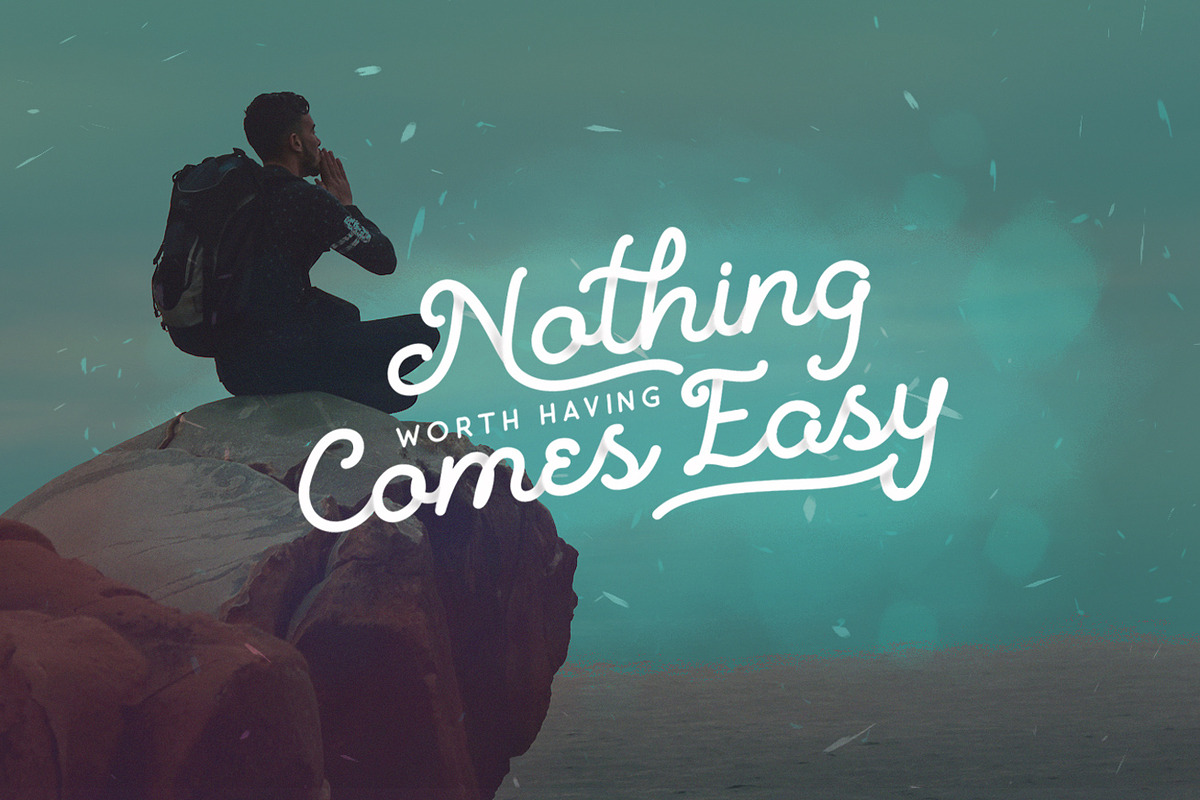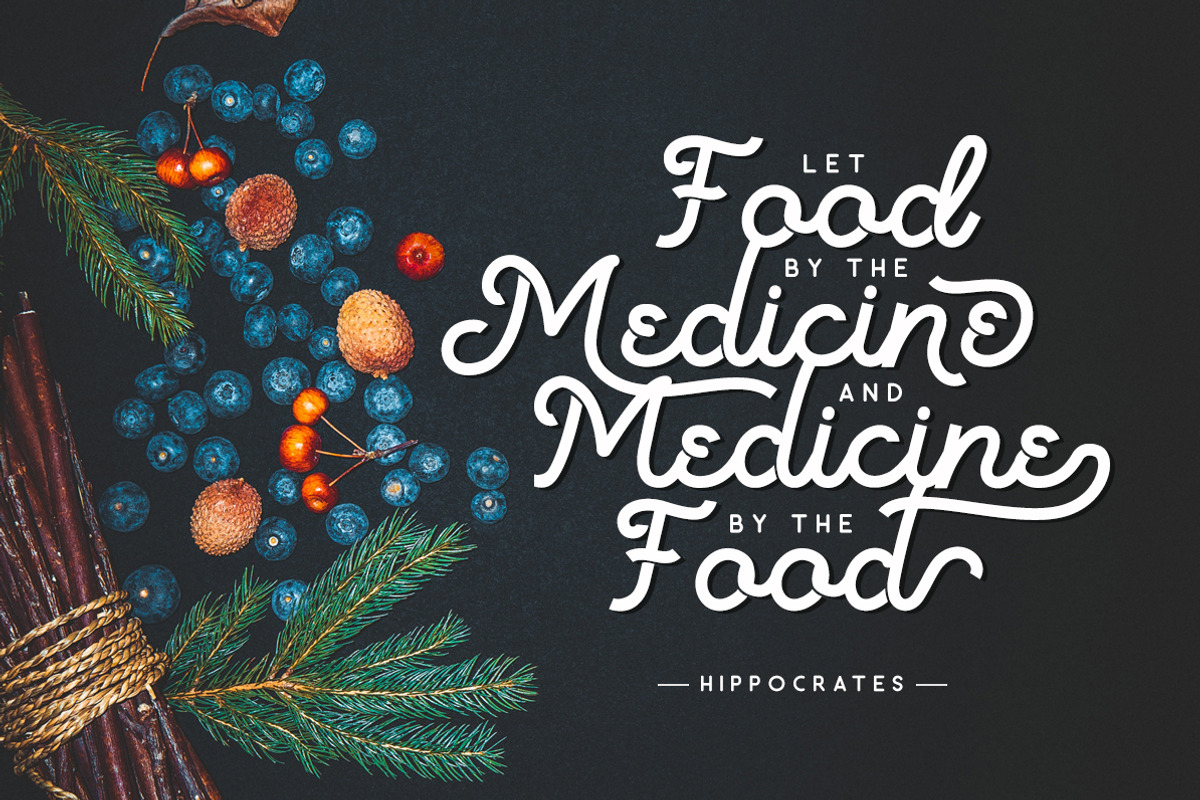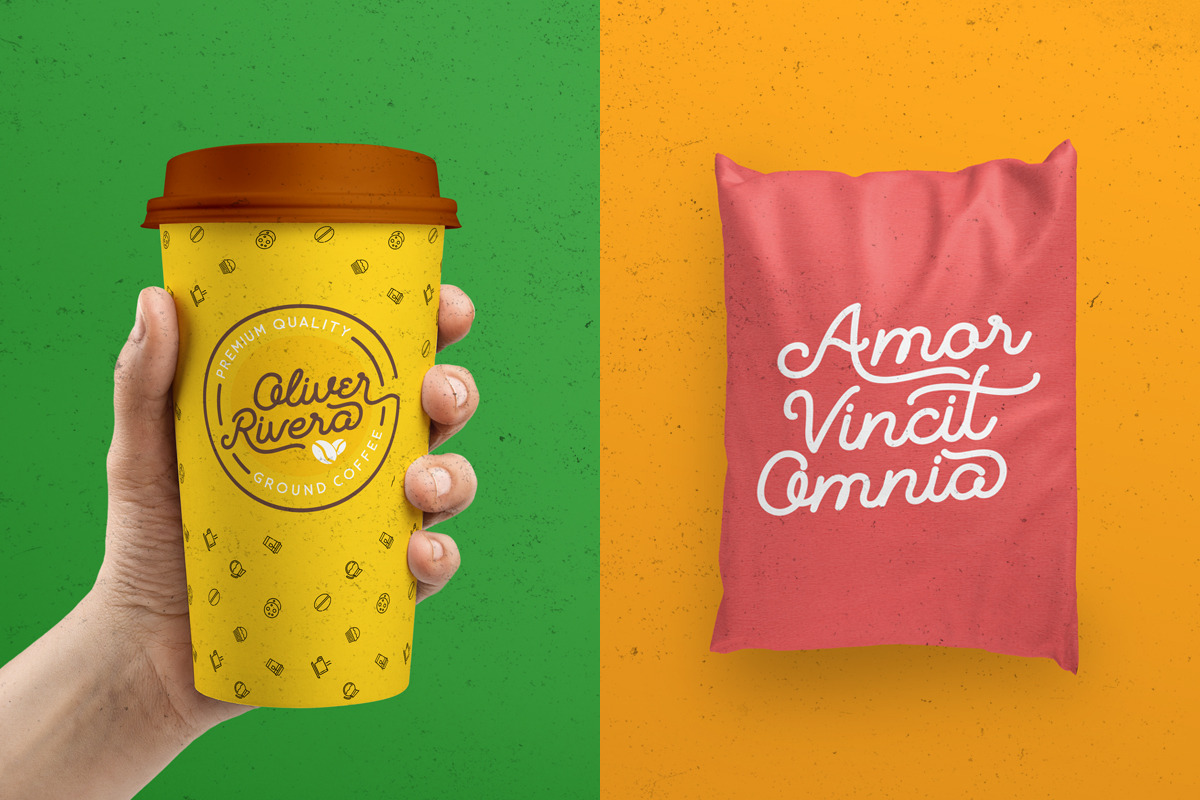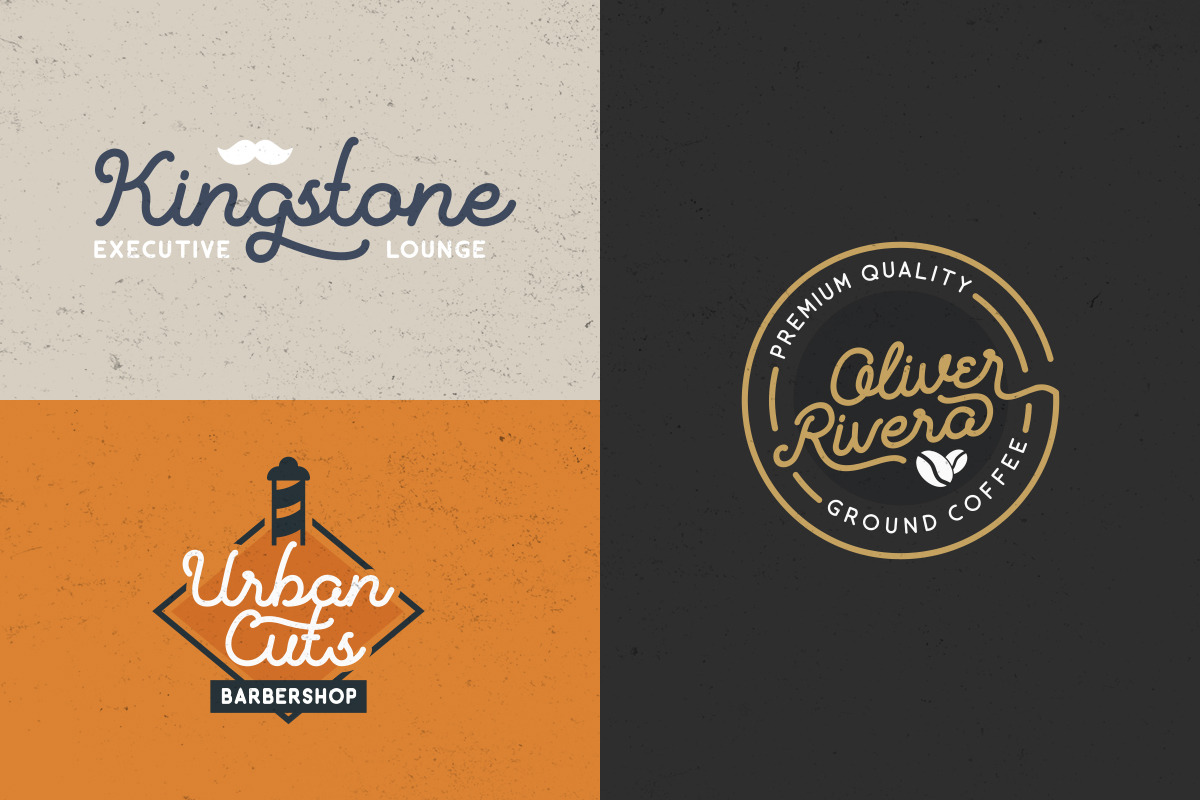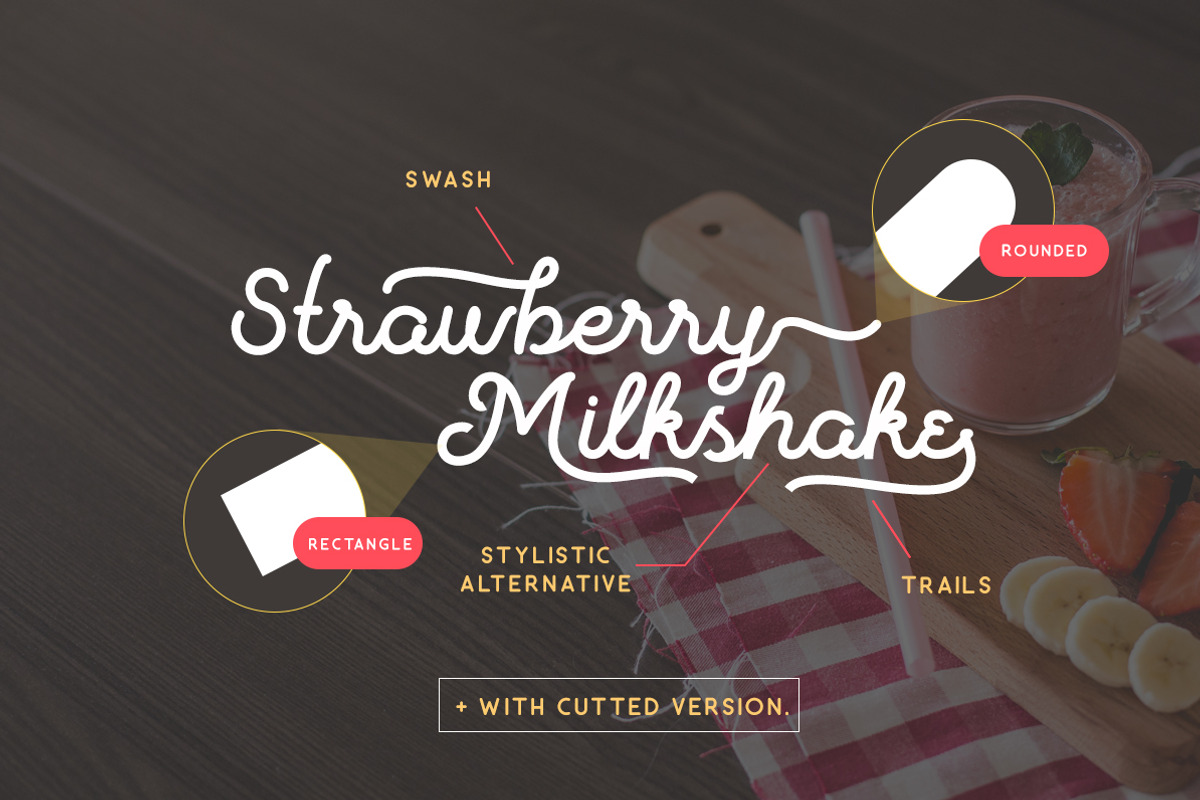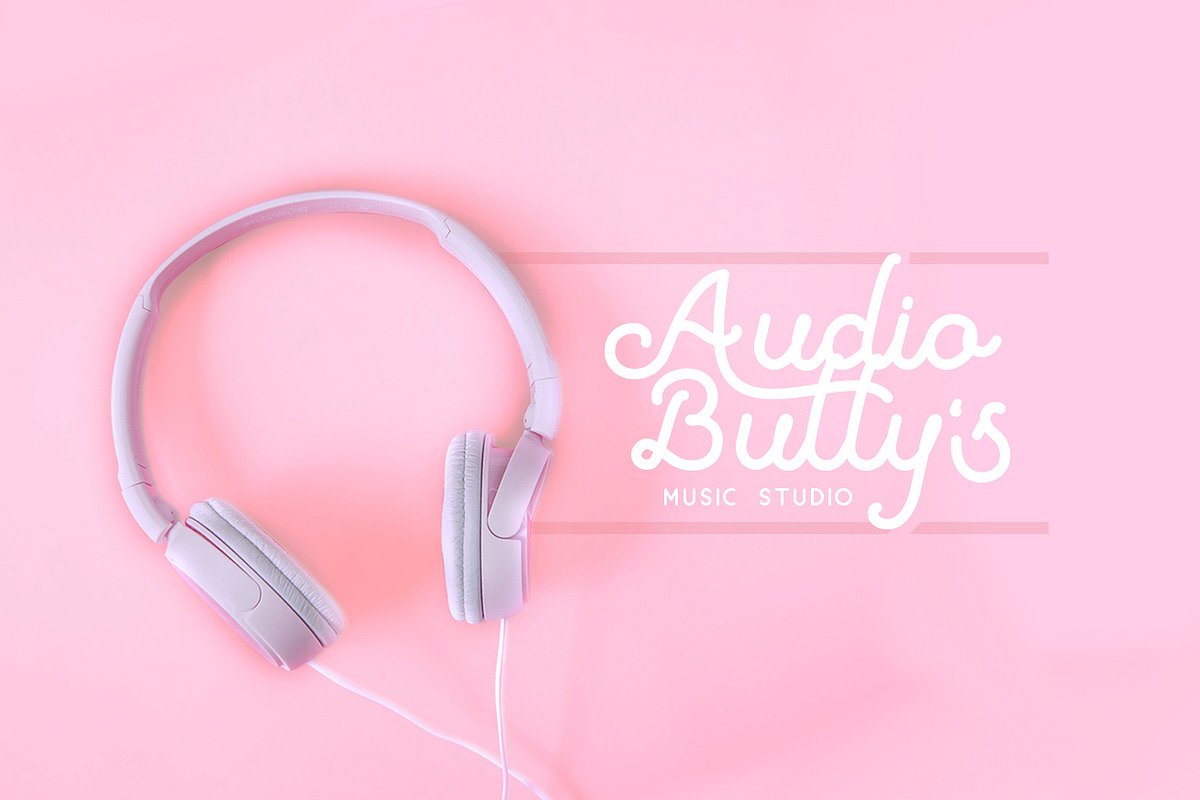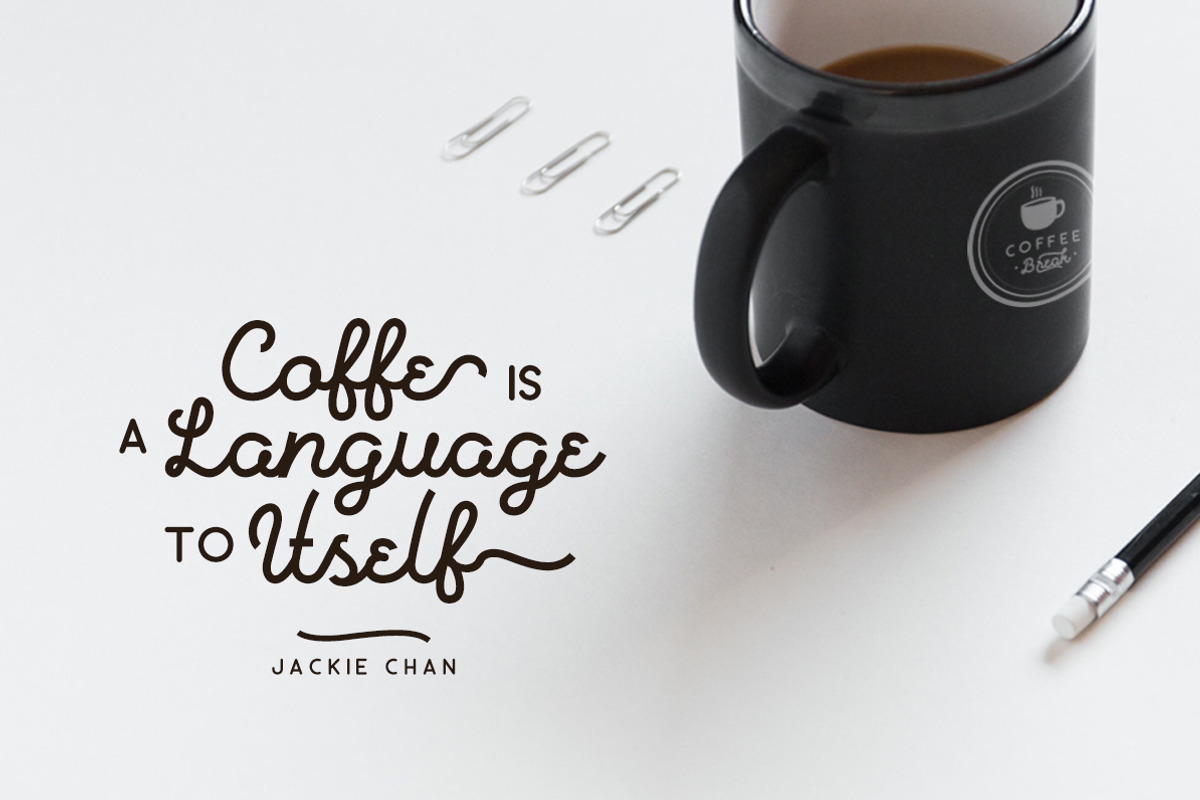
Vanilatte Font Duo
Vanilatte Font Duo by Letterhend Studio is a font selected for branding, posters, packaging, typography.
- We also included the sans font as complementary, and also 15 bonus ready made logo templates with food theme!
- This font is comes in uppercase, lowercase, punctuations, symbols & numerals, stylistic set alternate, ligatures, etc.
Why Vanilatte Font Duo is worth a look
Vanilatte Font Duo by Letterhend Studio fits naturally into Branding, posters, packaging, typography.